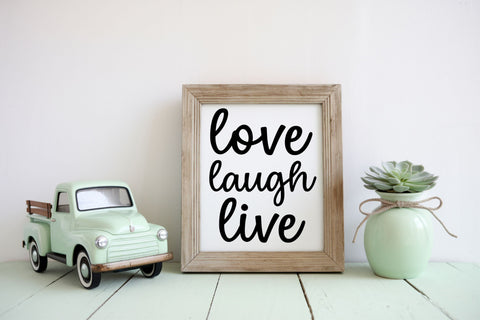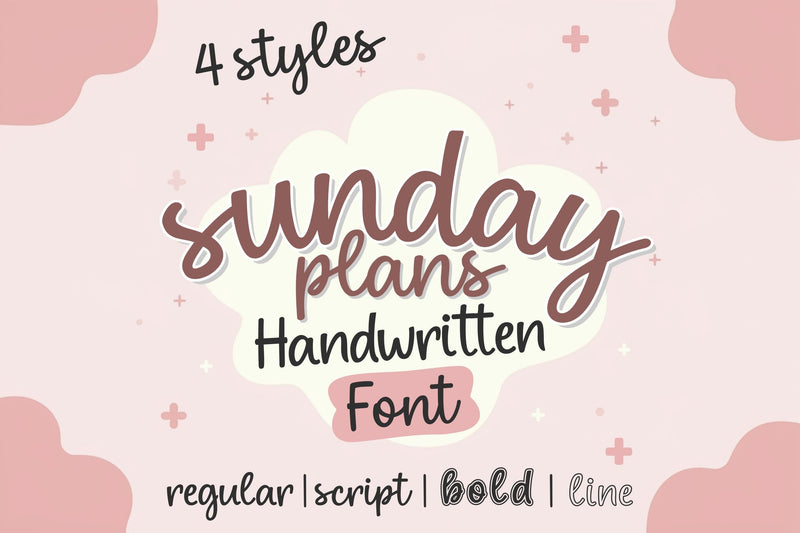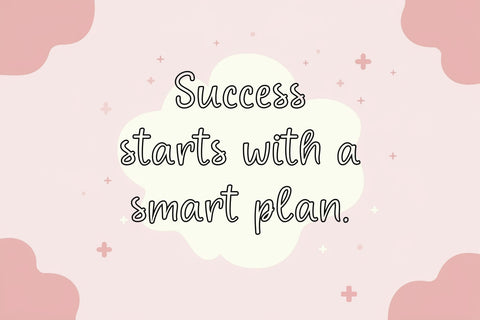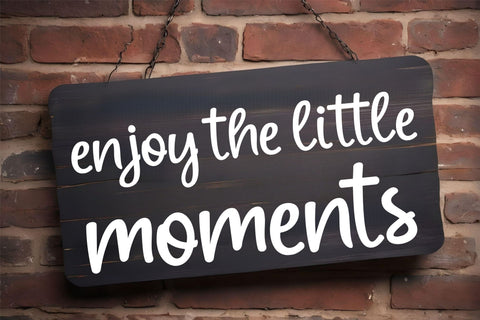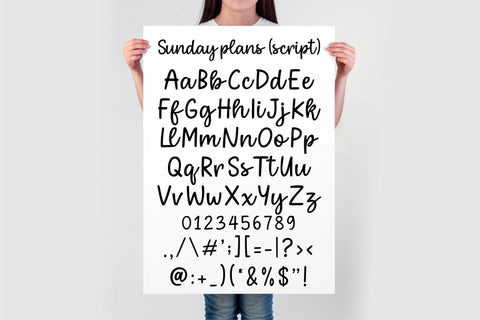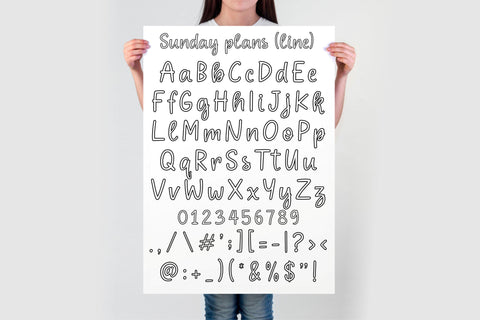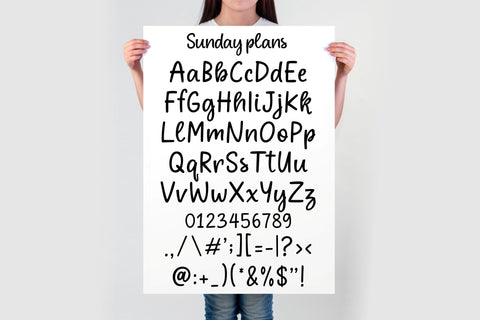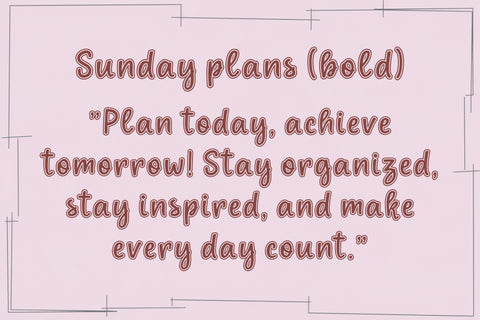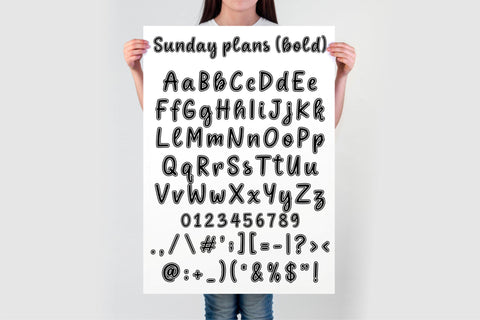
Sunday Plans Font Bundle | Cute Handwritten Script Font
Introducing Sunday Plans, a versatile handwritten font bundle featuring four unique styles – Regular, Script, Bold, and Line. Whether you're designing for digital planners, bullet journaling, note-taking, or creative branding, this font adds a modern, aesthetic touch to your projects.
With its smooth, natural flow, Sunday Plans is perfect for Canva, Procreate, Cricut, Silhouette, and Sublimation. Ideal for stickers, invitations, SVG projects, t-shirts, home decor, and more!
✔ 4 Font Styles – Regular, Script, Bold, and Line
✔ Full Alphabet (A-Z), Numbers, and Symbols
✔ Perfect for digital planning, journaling, and social media graphics
Perfect For:
📔 Digital Planners & Bullet Journals
📝 Aesthetic Note-Taking & Study Notes
📅 To-Do Lists, Calendars & Organization Templates
🌸 Stickers, Scrapbooking & DIY Projects
📲 Instagram, Pinterest & Social Media Graphics
👕 Sublimation Prints, T-Shirts & Apparel Design
✍️ Handwritten Quotes & Cute Branding